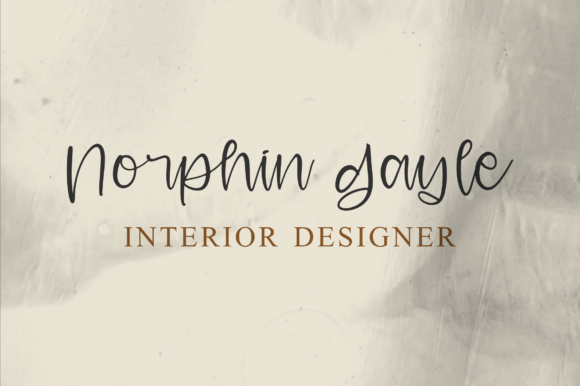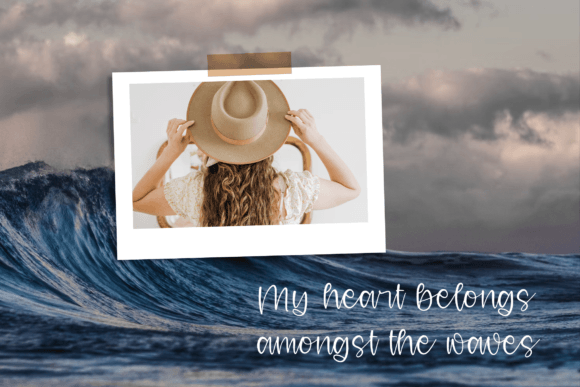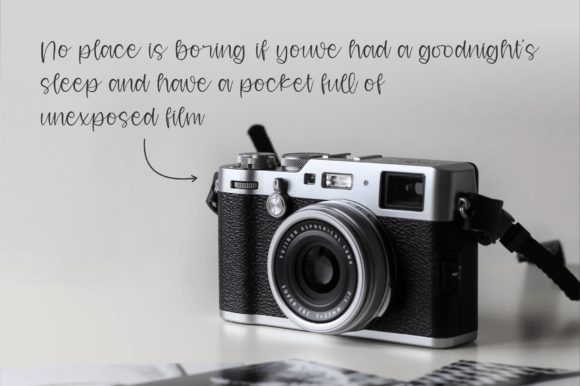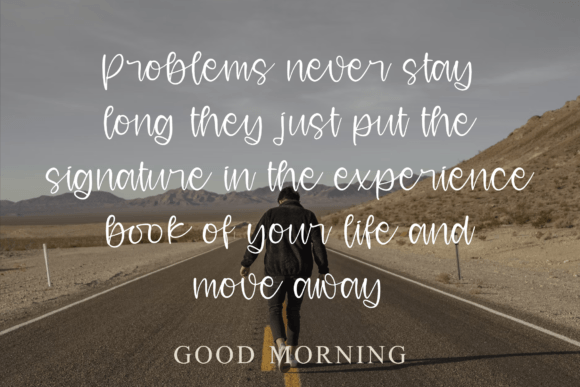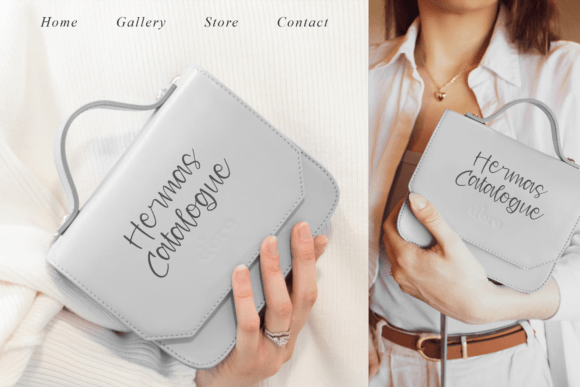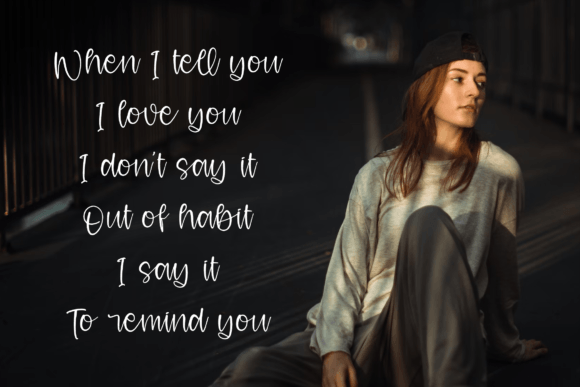
Bellamy Font: Elevate Your Designs with Elegance and Sophistication
In the world of typography, fonts play a crucial role in conveying the tone and personality of a design. For designers and crafters looking to add a touch of elegance and sophistication to their projects, the Bellamy Font is an excellent choice. This stylish and delicate script font has gained popularity for its clean, thin, and smooth vibe, making it a hit for various design applications.
What Makes Bellamy Font Stand Out?
Bellamy Font boasts a unique combination of characteristics that set it apart from other script fonts. Its delicate and thin strokes give it a light, airy feel, perfect for designs that require a subtle yet impactful touch. The font’s smooth lines and curves create a sense of fluidity, making it easy to read and visually appealing.
Key Features of Bellamy Font
- Clean and Thin Strokes: Bellamy Font features clean and thin strokes that give it a delicate and refined look.
- Smooth Lines and Curves: The font’s smooth lines and curves create a sense of fluidity, making it perfect for designs that require elegance and sophistication.
- Script Style: Bellamy Font is a script font that adds a touch of personality and whimsy to any design.
- Versatile: This font is versatile and can be used for various design applications, including logos, branding, packaging, and more.
Uses of Bellamy Font
Bellamy Font is a versatile font that can be used for a wide range of design applications. Here are some popular uses of this beautiful font:
- Logos and Branding: Bellamy Font is perfect for creating elegant and sophisticated logos and branding materials.
- Packaging Design: The font’s clean and thin strokes make it ideal for packaging design, adding a touch of refinement to product labels and packaging.
- Stationery and Invitations: Bellamy Font is a great choice for designing stationery, invitations, and other paper goods that require a touch of elegance.
- Digital Design: This font can also be used for digital design applications, such as website headers, social media graphics, and more.
Tips for Using Bellamy Font
To get the most out of Bellamy Font, here are some tips to keep in mind:
- Use it as a Headline Font: Bellamy Font is perfect for headlines and titles, adding a touch of elegance and sophistication to your design.
- Pair it with a Sans-Serif Font: Pairing Bellamy Font with a sans-serif font creates a beautiful contrast and adds visual interest to your design.
- Experiment with Colors: Bellamy Font looks great in a variety of colors, so don’t be afraid to experiment and find the perfect hue for your design.
In conclusion, Bellamy Font is a stylish and delicate script font that is perfect for designers and crafters looking to add a touch of elegance and sophistication to their projects. Its clean, thin, and smooth vibe makes it a hit for various design applications, from logos and branding to packaging design and digital design. With its versatility and range of uses, Bellamy Font is a great addition to any designer’s toolkit.